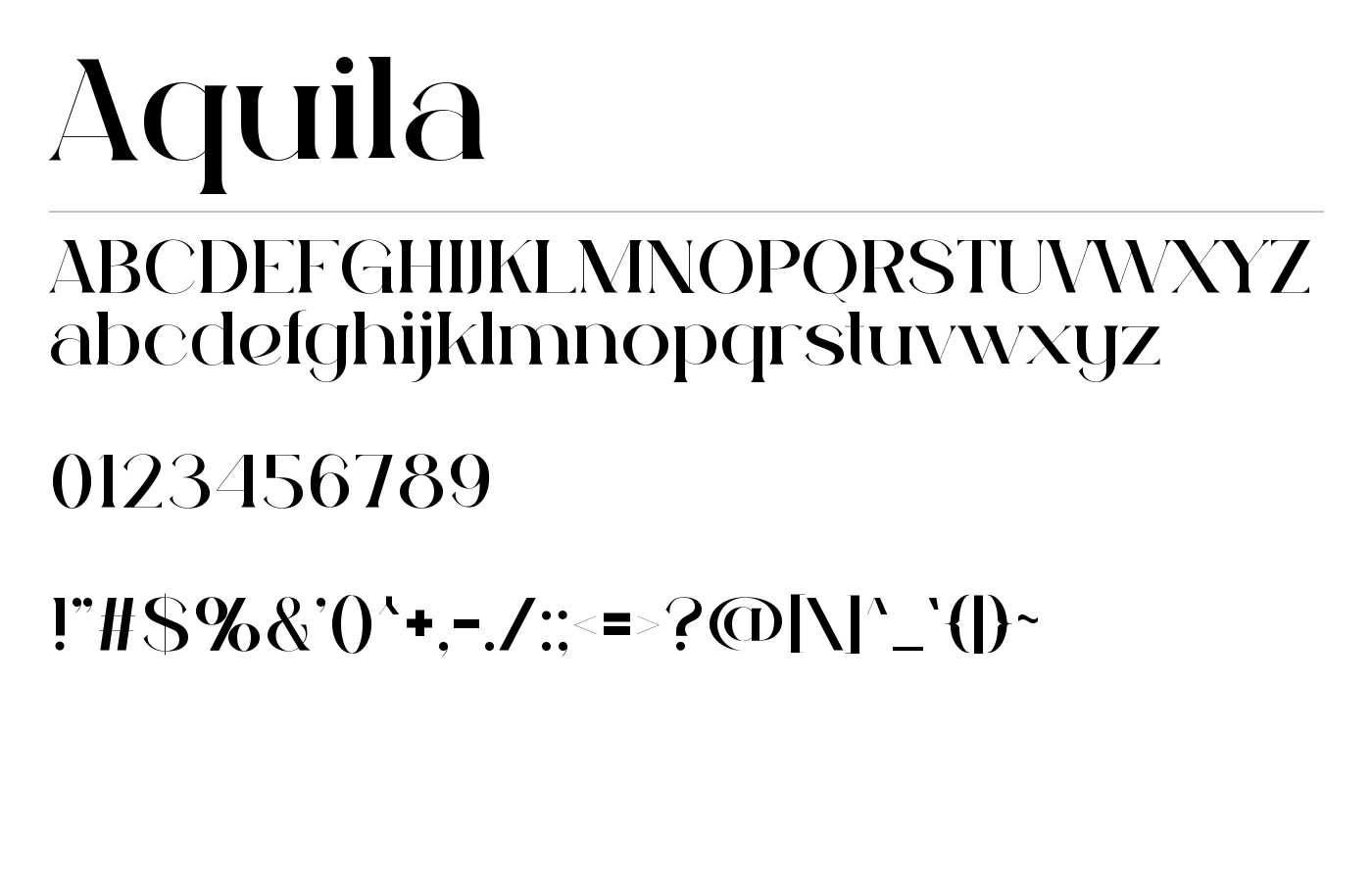
Aquila is a stylish serif font featuring high contrast between thick and thin strokes, embodying a modern Didone style with sharp, elegant serifs and delicate curves. Its refined letterforms and distinctive details give it a luxurious and sophisticated feel, making it ideal for fashion branding, editorial headlines, and upscale packaging where a chic, polished look is desired. This font stands out with its graceful balance of classic elegance and contemporary flair, perfect for creating memorable, high-end designs.
Aquila Font
About Aquila Font